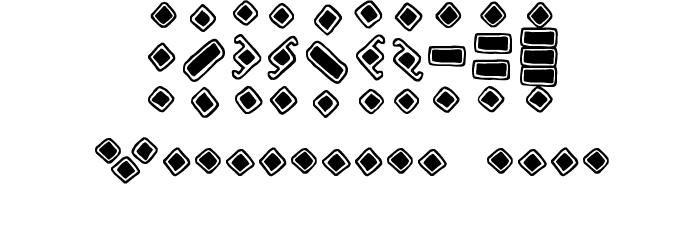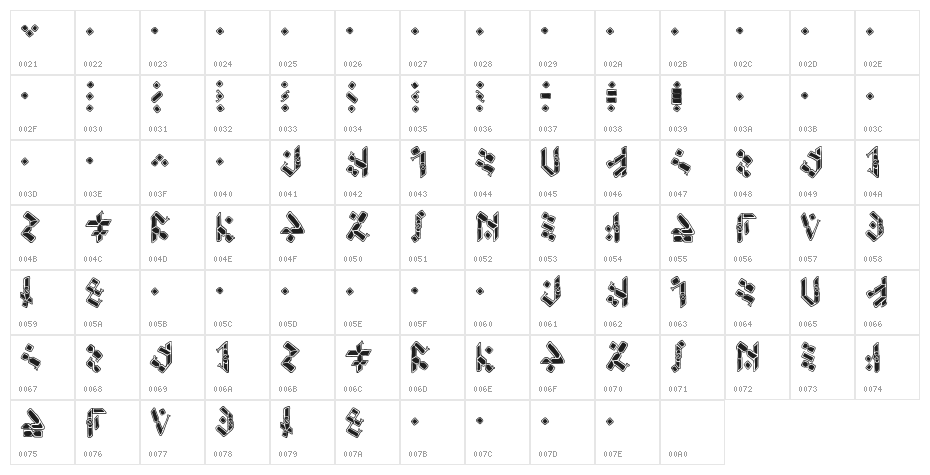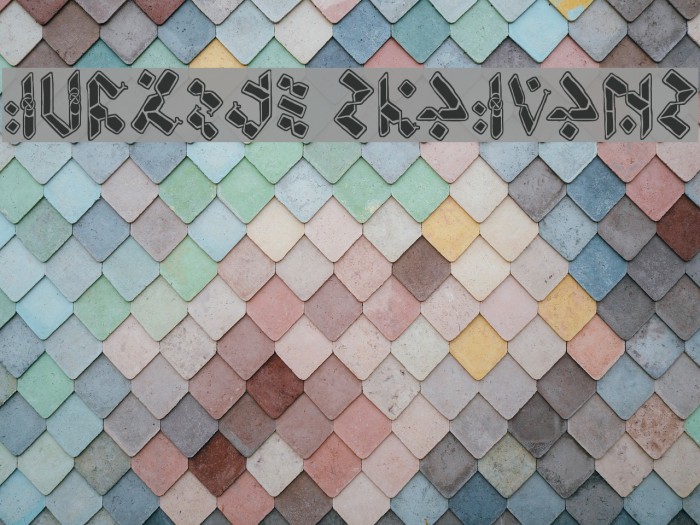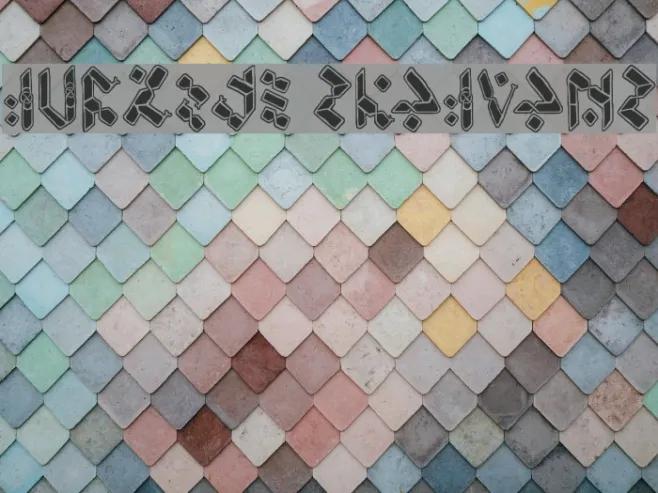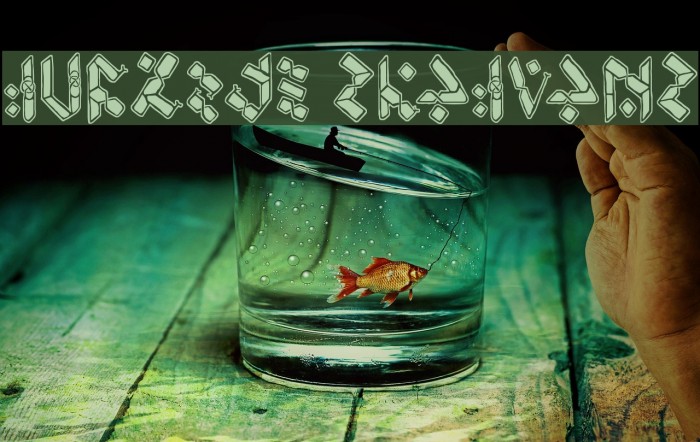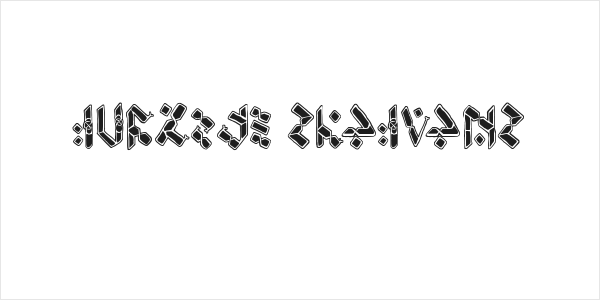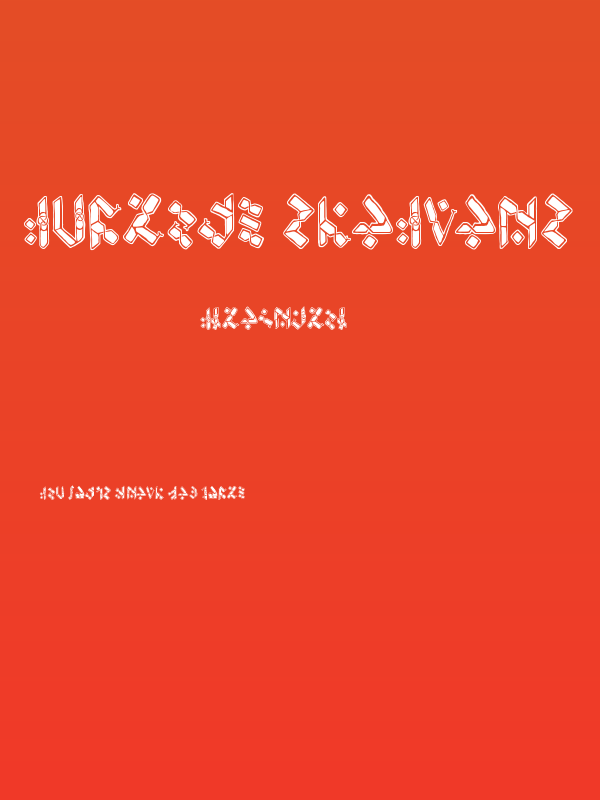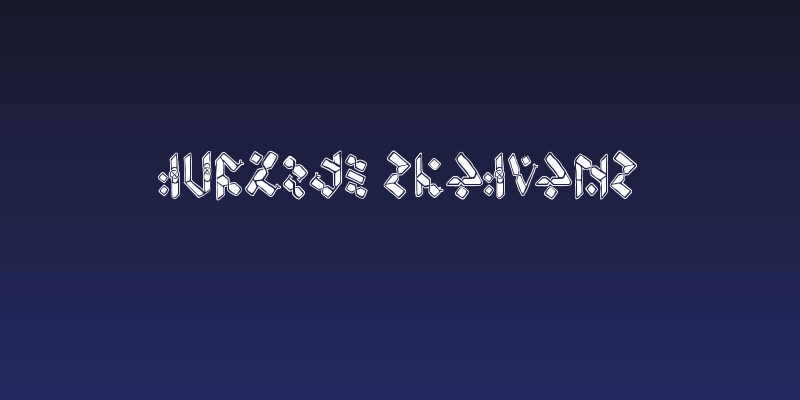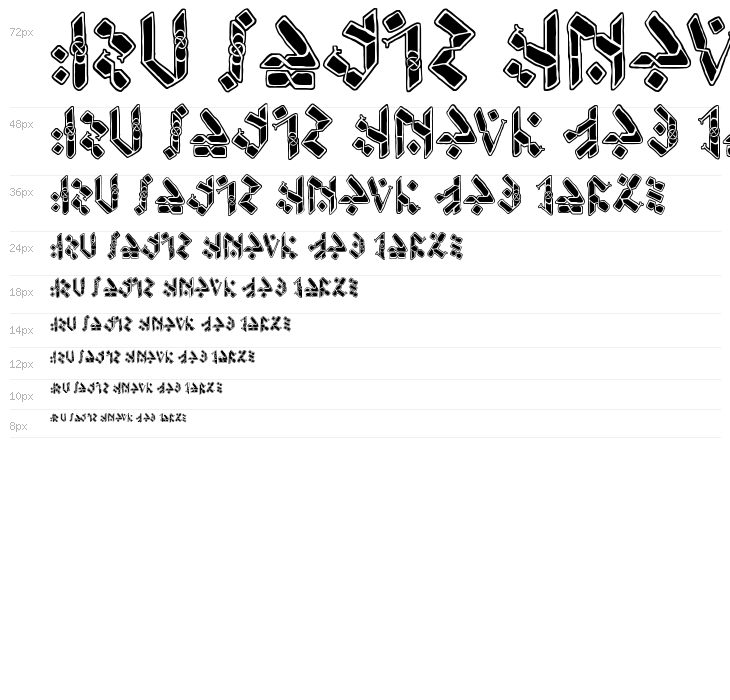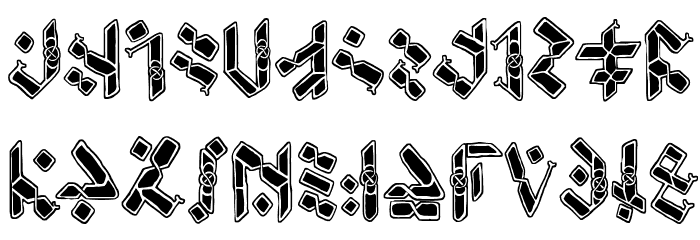
Temphis Knotwork Font
Temphis Knotwork Description
This font features an intricate knotwork design, reminiscent of Celtic art, with each character formed by intertwining lines and loops. The bold, geometric shapes are filled with solid black, creating a striking contrast against the white background. The characters are highly decorative, with a three-dimensional appearance due to the overlapping lines and shadow effects. This font is not suitable for body text due to its complexity but serves as an eye-catching display typeface. The unique style makes it ideal for themed projects that require a touch of ancient or mystical aesthetics.
| Proposed Projects | Ideal for themed posters, fantasy book covers, game titles, and decorative logos. |